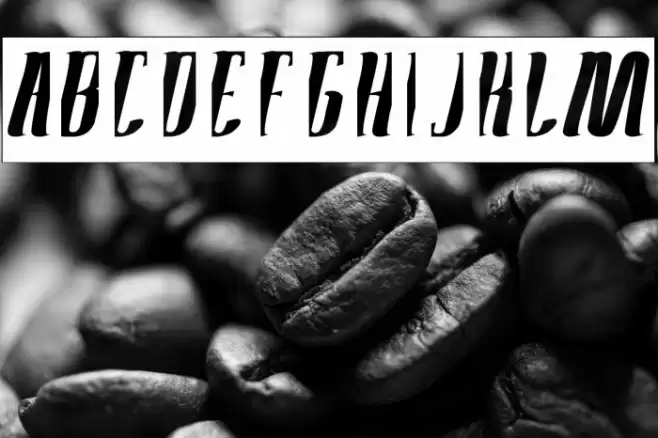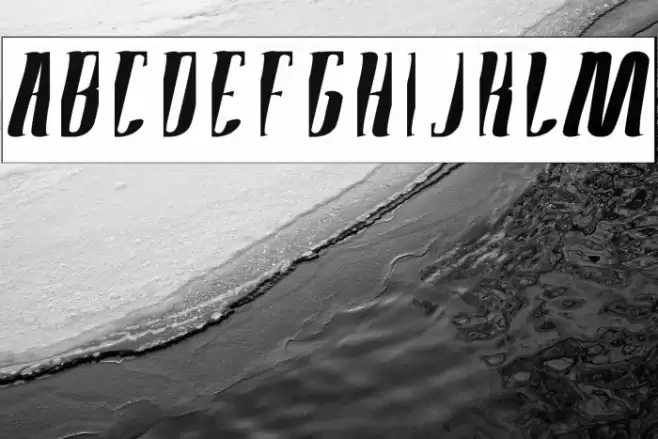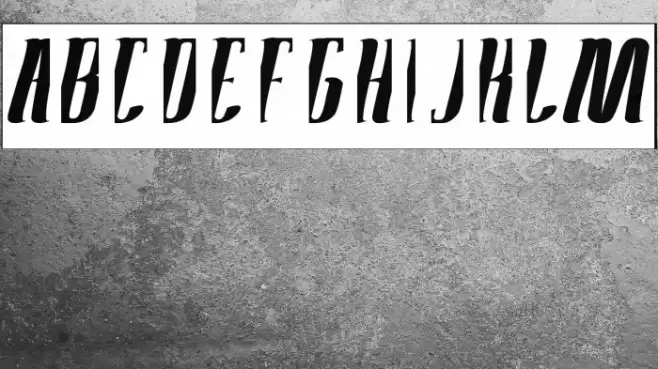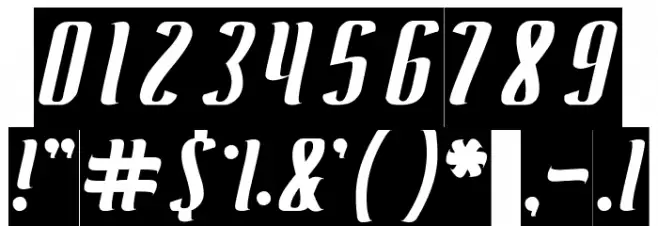
Antelope Run-Inverse Font
Antelope Run-Inverse Description
This font features a dynamic and energetic style, characterized by its sharp, angular serifs and a forward-leaning italic posture. The uppercase letters exhibit a bold presence with elongated vertical strokes and pointed terminals, creating a sense of motion and speed. The lowercase letters maintain a consistent style, with a slightly condensed form that enhances readability while preserving the font's unique flair. Numbers and special characters are designed to match the overall aesthetic, ensuring cohesion across all elements. The font's high contrast between thick and thin strokes adds to its dramatic appearance, making it suitable for attention-grabbing designs.
A dynamic, italic serif font with sharp angles and high contrast from Uncategorized fonts.
- Font: Antelope Run-Inverse
- Proposed Projects: Ideal for sports branding, dynamic posters, and energetic headlines.